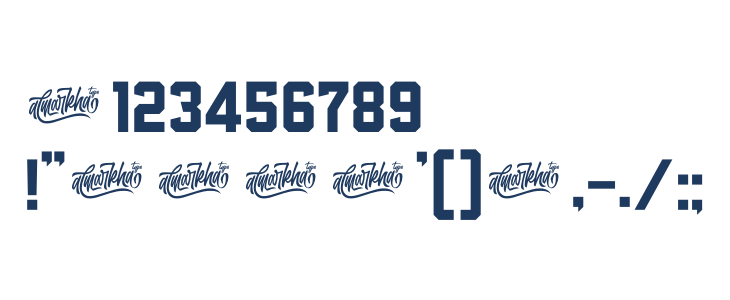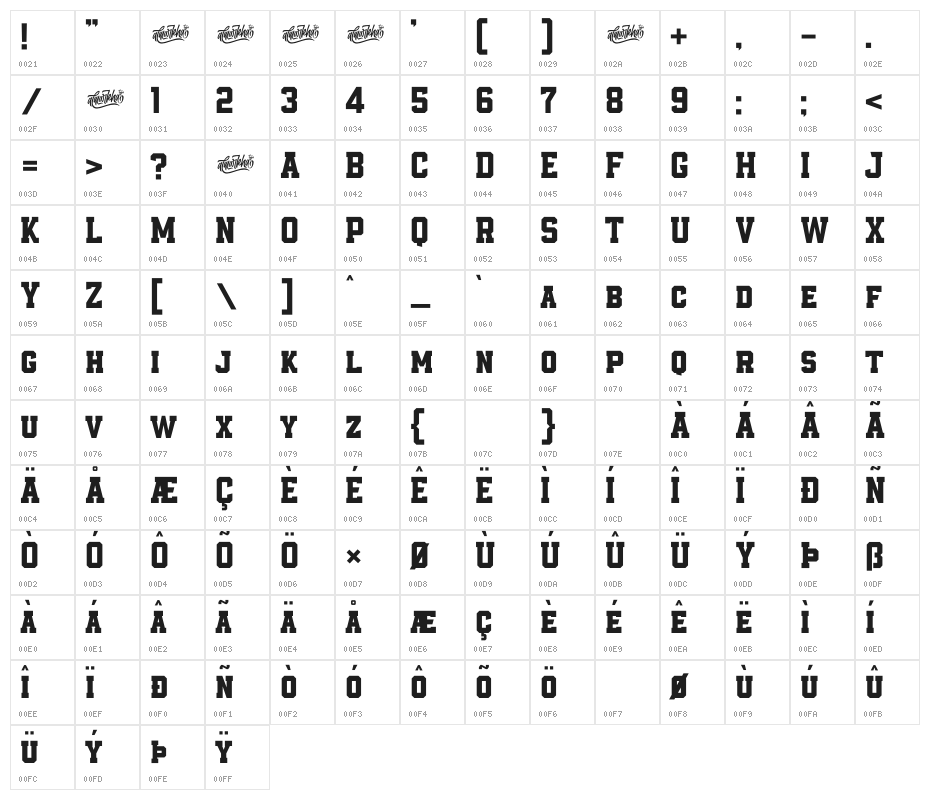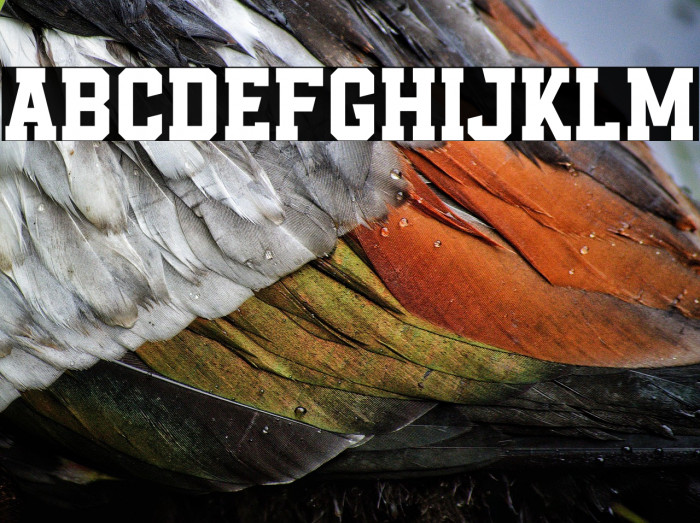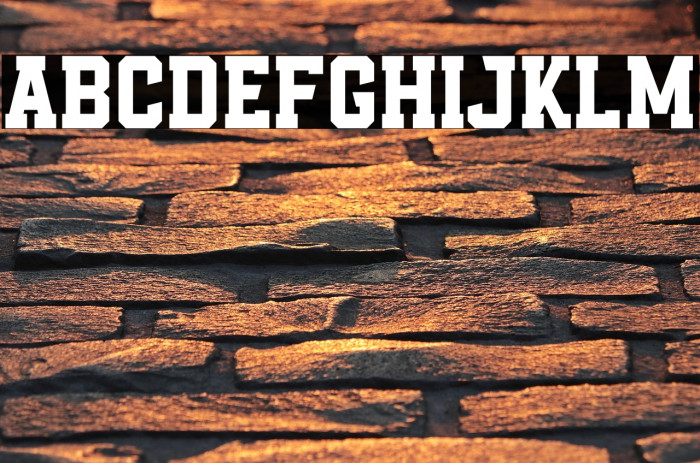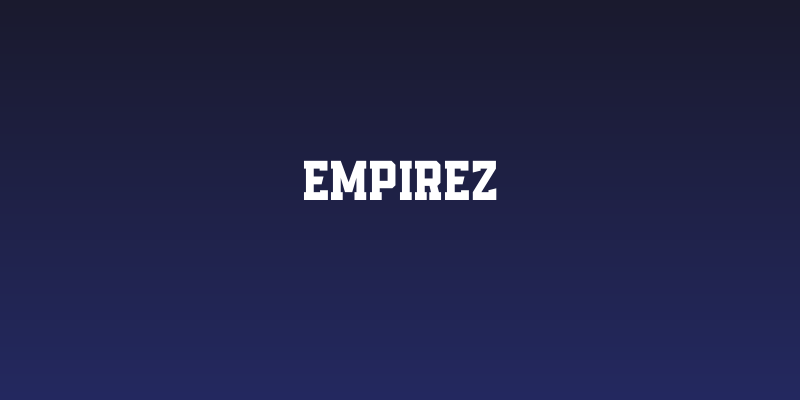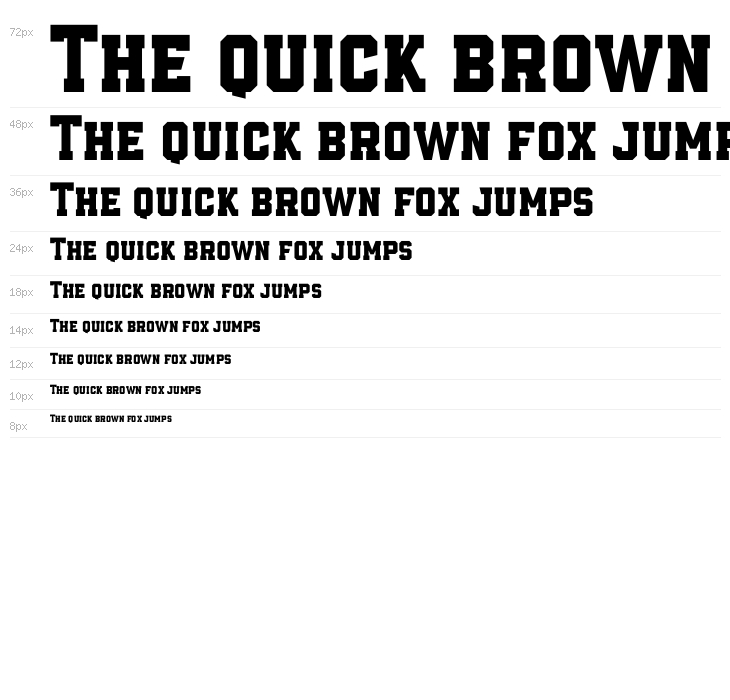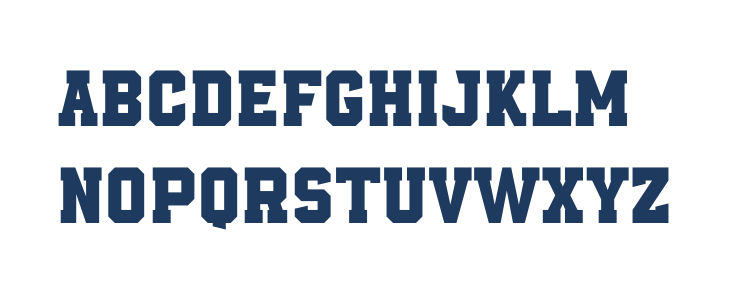
Empirez Font
Empirez Description
This font exhibits a bold and commanding presence with its thick, blocky letters. The uppercase characters are robust and angular, providing a sense of strength and authority. The lowercase letters maintain the same boldness, ensuring consistency across different text cases. Numbers are equally bold, making them stand out prominently. Special characters are included, offering versatility for various design needs. The overall design is reminiscent of vintage sports or collegiate themes, making it ideal for projects that require a strong, impactful visual statement.
| Overall Style | Vintage |
| Proposed Projects | Ideal for sports team branding, posters, headlines, and logos that require a strong, impactful look. |